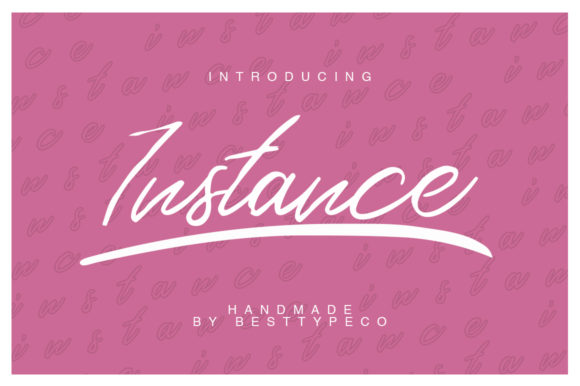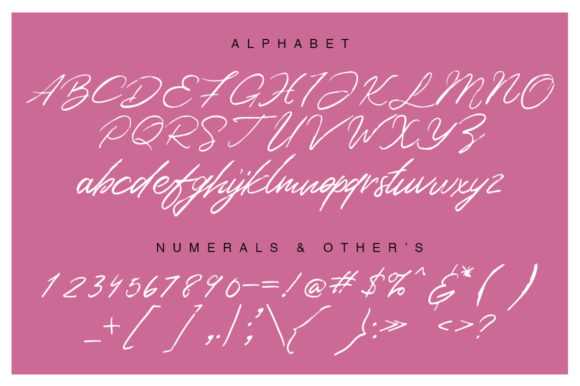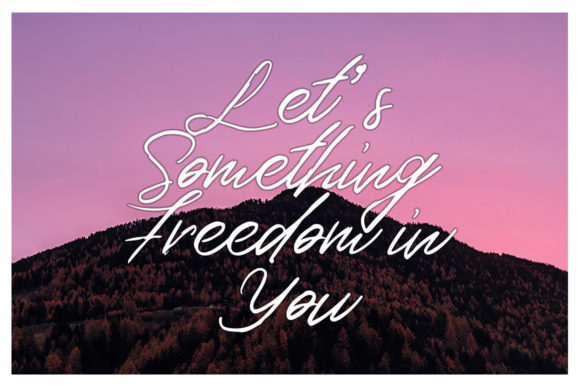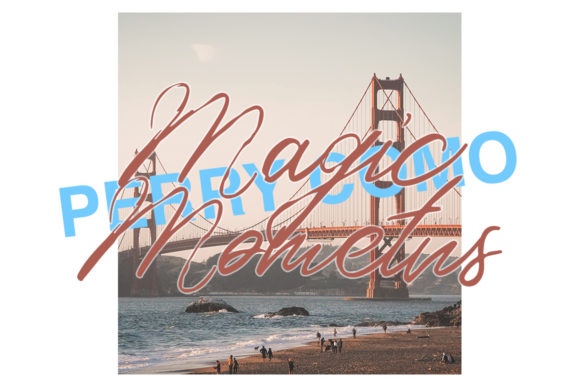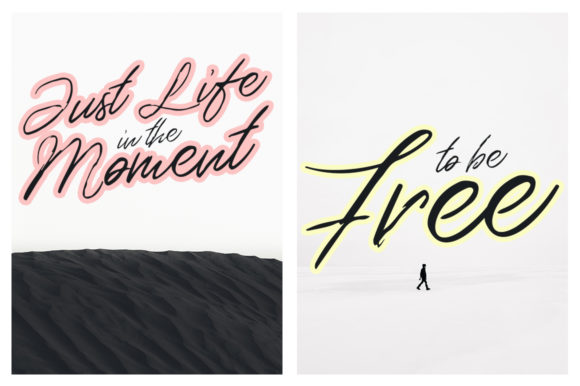
Instance Font
About Instance Font
Instance is a brushed handwritten font, designed to level up each of your creations. Fall in love with its incredibly versatile style and use it to create gorgeous wedding invitations, beautiful stationary art, eye-catching social media posts, and much more!